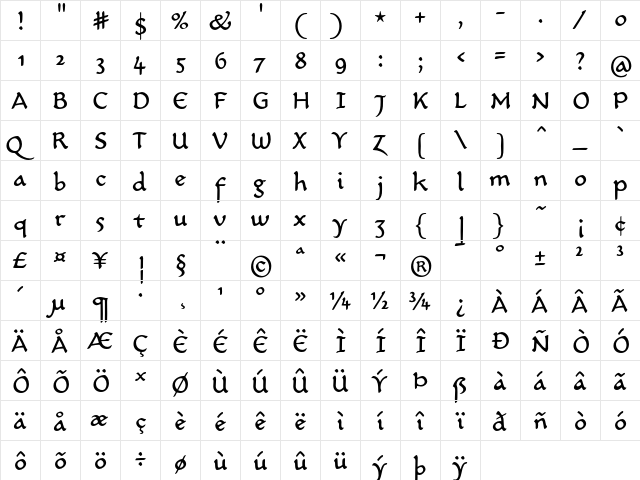
CarlinScript LT Std Regular Font Preview
| Foundry | Linotype Library GmbH |
| Designer | Hans-Jn Ellenberger |
Design Context for CarlinScript LT Std Regular Typeface
CarlinScript LT Std Regular brings a calligraphic fluidity to the page — its connecting strokes and expressive curves give it an unmistakably human quality. Its slender proportions lend an understated elegance to any composition.
Font Pairing: Combine CarlinScript LT Std Regular with a simple geometric sans for maximum contrast — the tension between flowing curves and clean structure is a classic typographic pairing.
Pro Tip: Pair CarlinScript LT Std Regular with a clean sans-serif for supporting text. The contrast between fluid script and geometric structure creates an elegant typographic hierarchy.